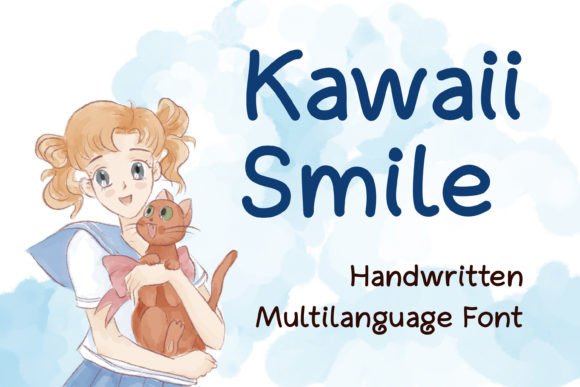
Introducing Kawaii Smile Font: The Delightful Handwritten Font That Will Make You Smile
Immerse yourself in the world of Kawaii Smile Font, an enchanting handwritten font brimming with charm and playfulness. Its whimsical strokes and a touch of quirkiness will add an irresistible touch to any design, turning your creative visions into delightful masterpieces.
With Kawaii Smile Font, you hold the key to unlocking a world of endless possibilities. Whether you're a seasoned designer or just starting, this captivating font will effortlessly elevate your projects to new heights. Its versatility knows no bounds, lending itself seamlessly to a myriad of design applications, from eye-catching logos and website designs to heartwarming invitations and cheerful greeting cards.
Let Kawaii Smile Font infuse your designs with a touch of joy and personality. Its charmingly imperfect lines and playful spirit will instantly capture the hearts of your audience, leaving a lasting impression that resonates long after they encounter your creations.
Step into a realm where cuteness and creativity collide, where every design tells a story. Whether you're crafting whimsical illustrations, heartwarming social media posts, or captivating marketing materials, Kawaii Smile Font will be your trusted companion, adding a touch of magic to every project you undertake.